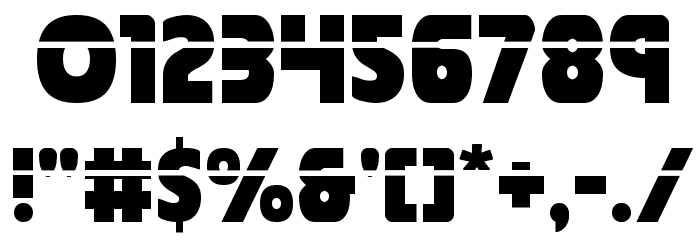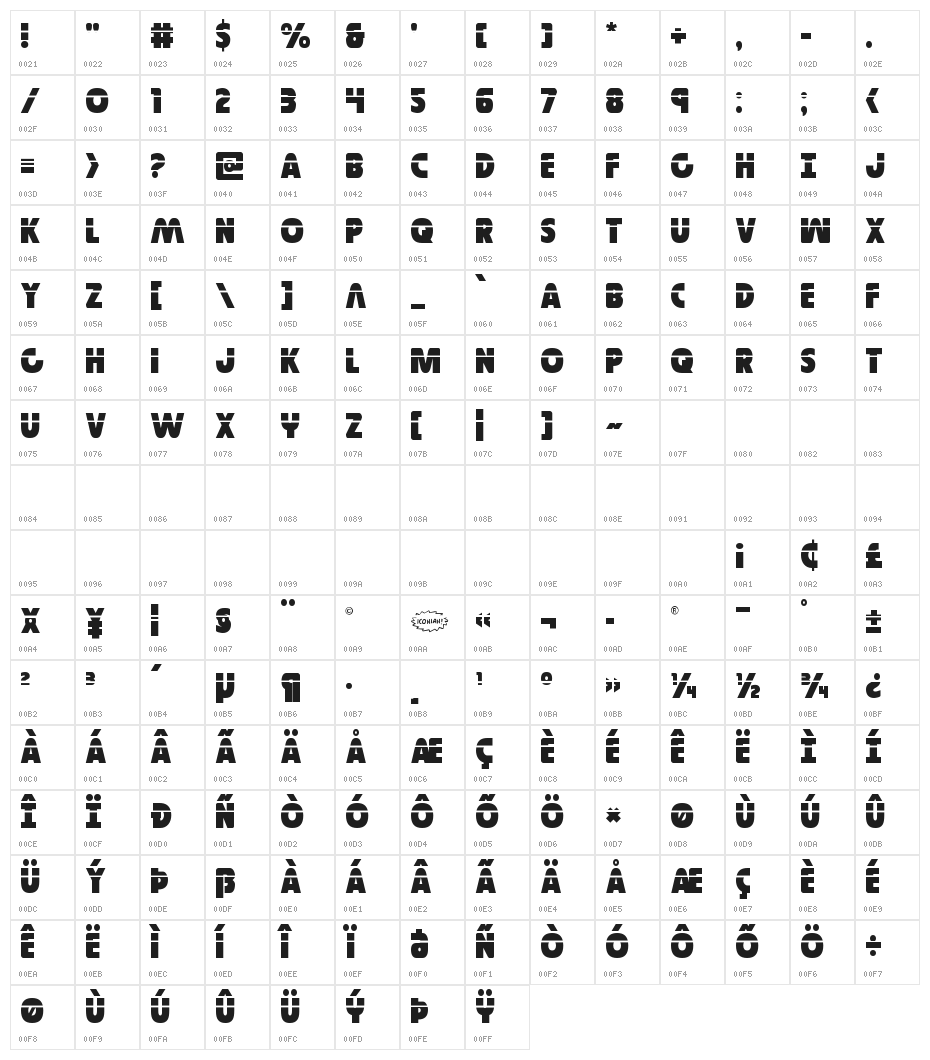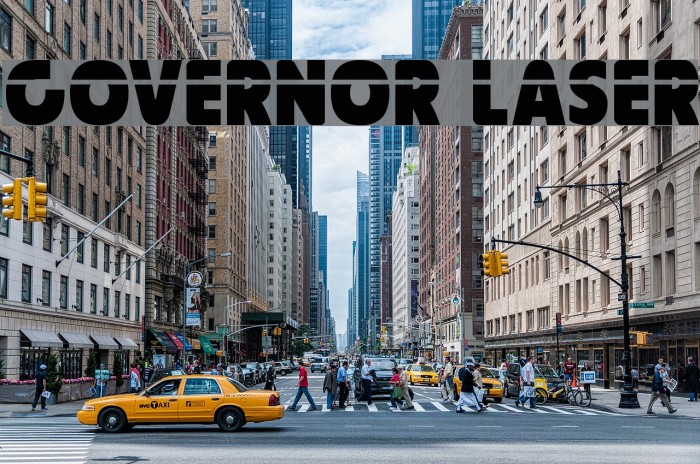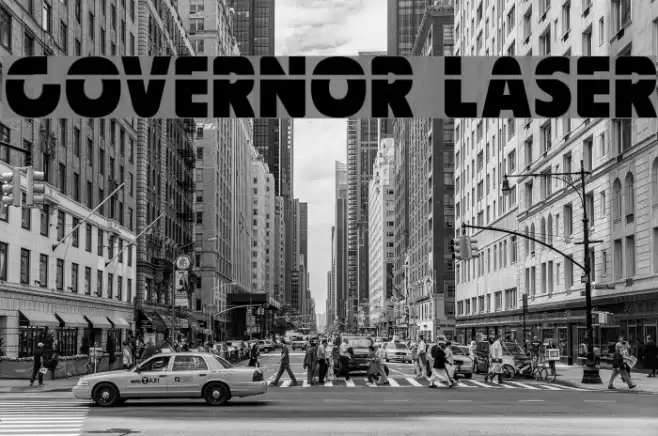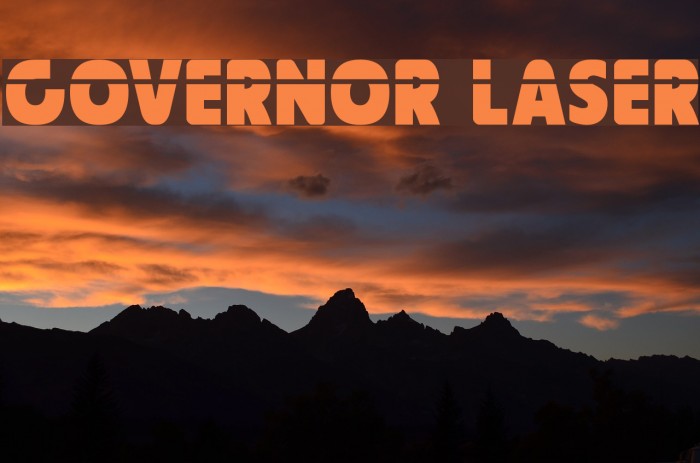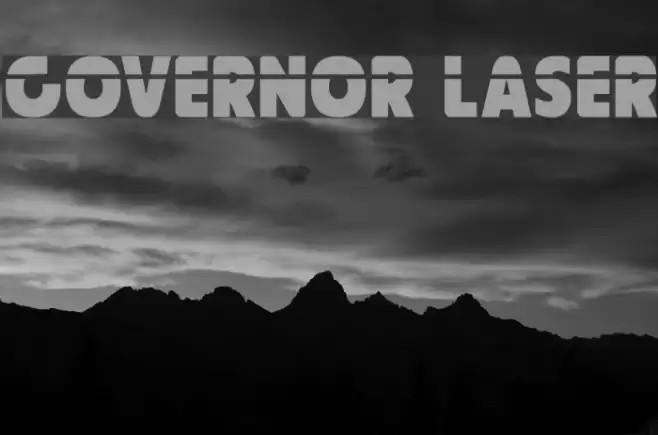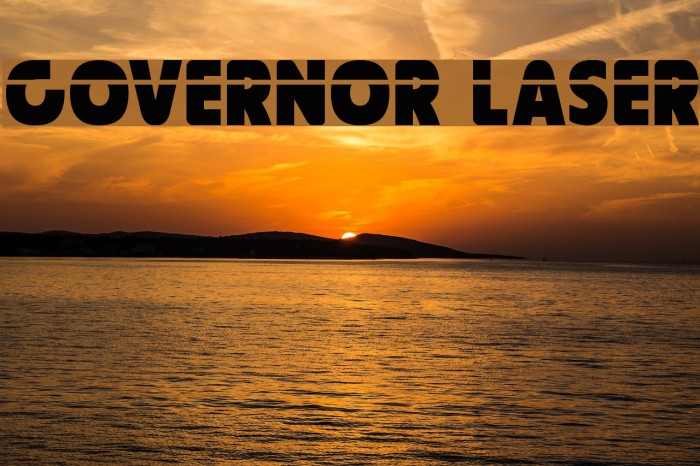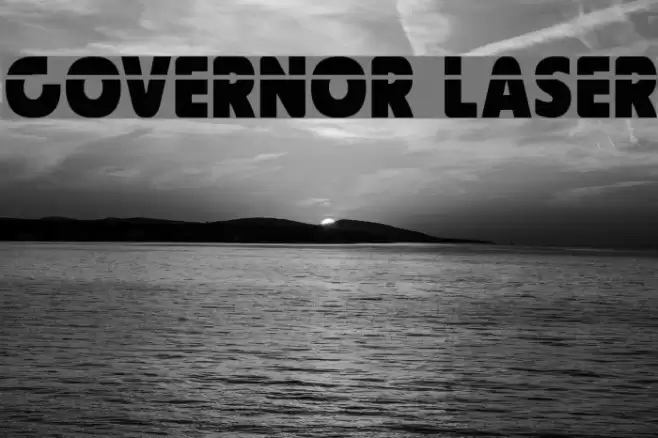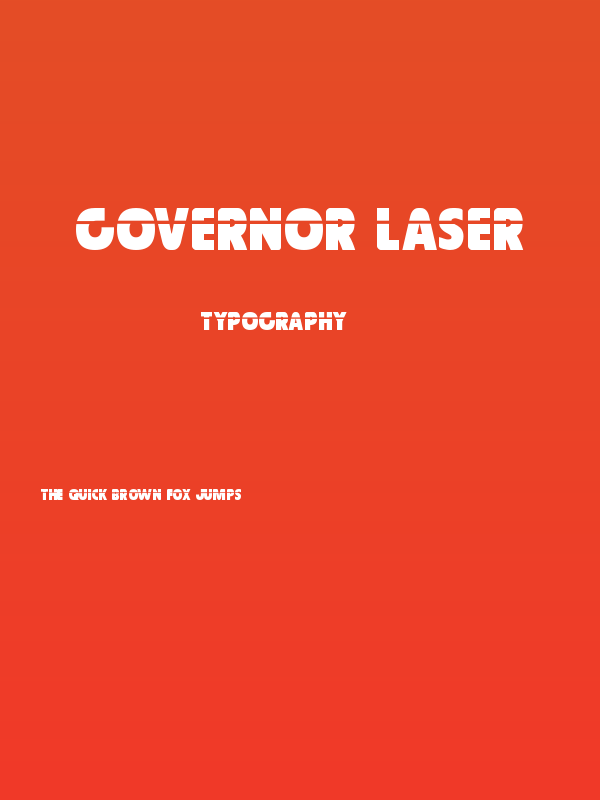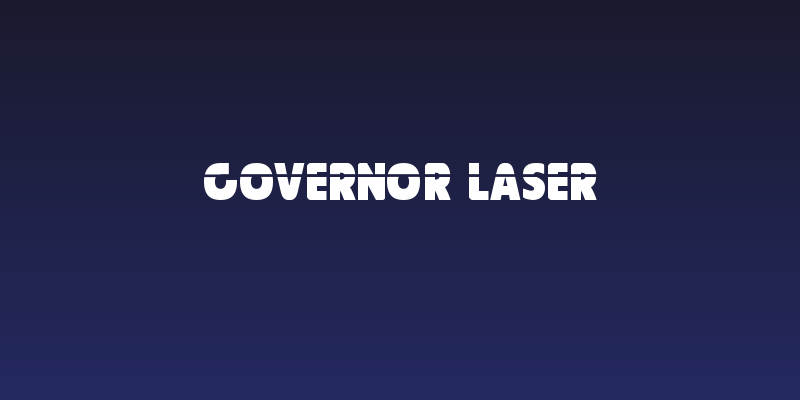
Governor Laser Font
Governor Laser Description
This font features a bold, geometric style with a futuristic and industrial feel. The characters are constructed with thick, uniform strokes, creating a strong visual impact. The design incorporates sharp angles and straight lines, giving it a modern and edgy appearance. The uppercase letters are particularly striking, with a blocky and robust form that commands attention. The numerals and special characters maintain the same boldness and geometric precision, ensuring consistency across all elements. This font's unique style makes it ideal for projects that require a strong, assertive typeface.